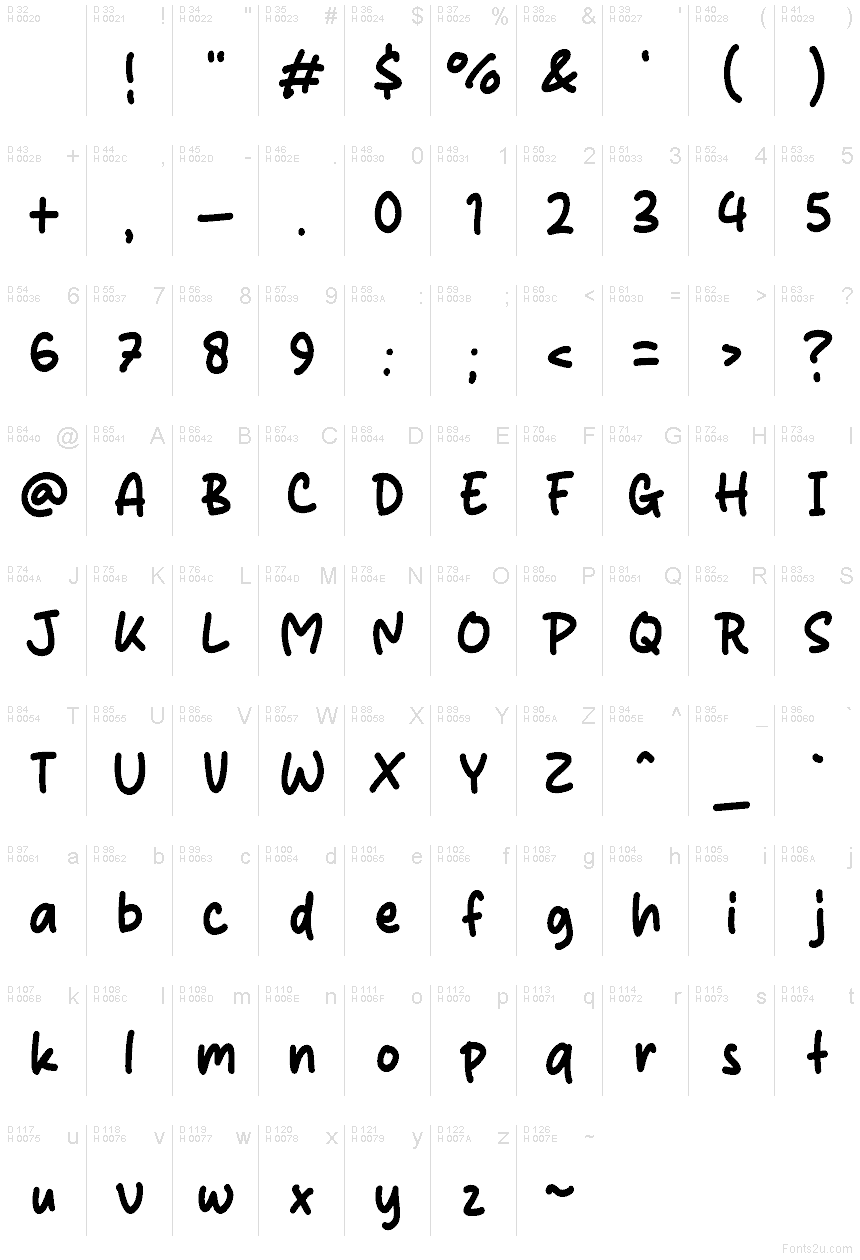
Good Slick
Good Slick font is a friendly casual handwritten free font by MJType. Its appropriate look creates an approachable vibe, which can be useful for certain design purposes. Use it for a modern approach in branding, poster designs, or invitations. The typeface is suitable for personal projects to add the right amount of creativity and genuineness.